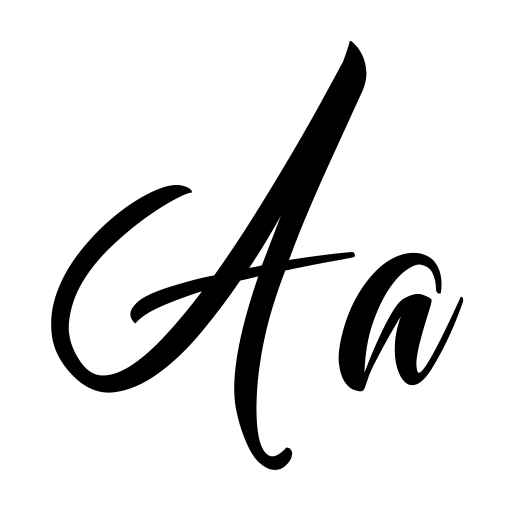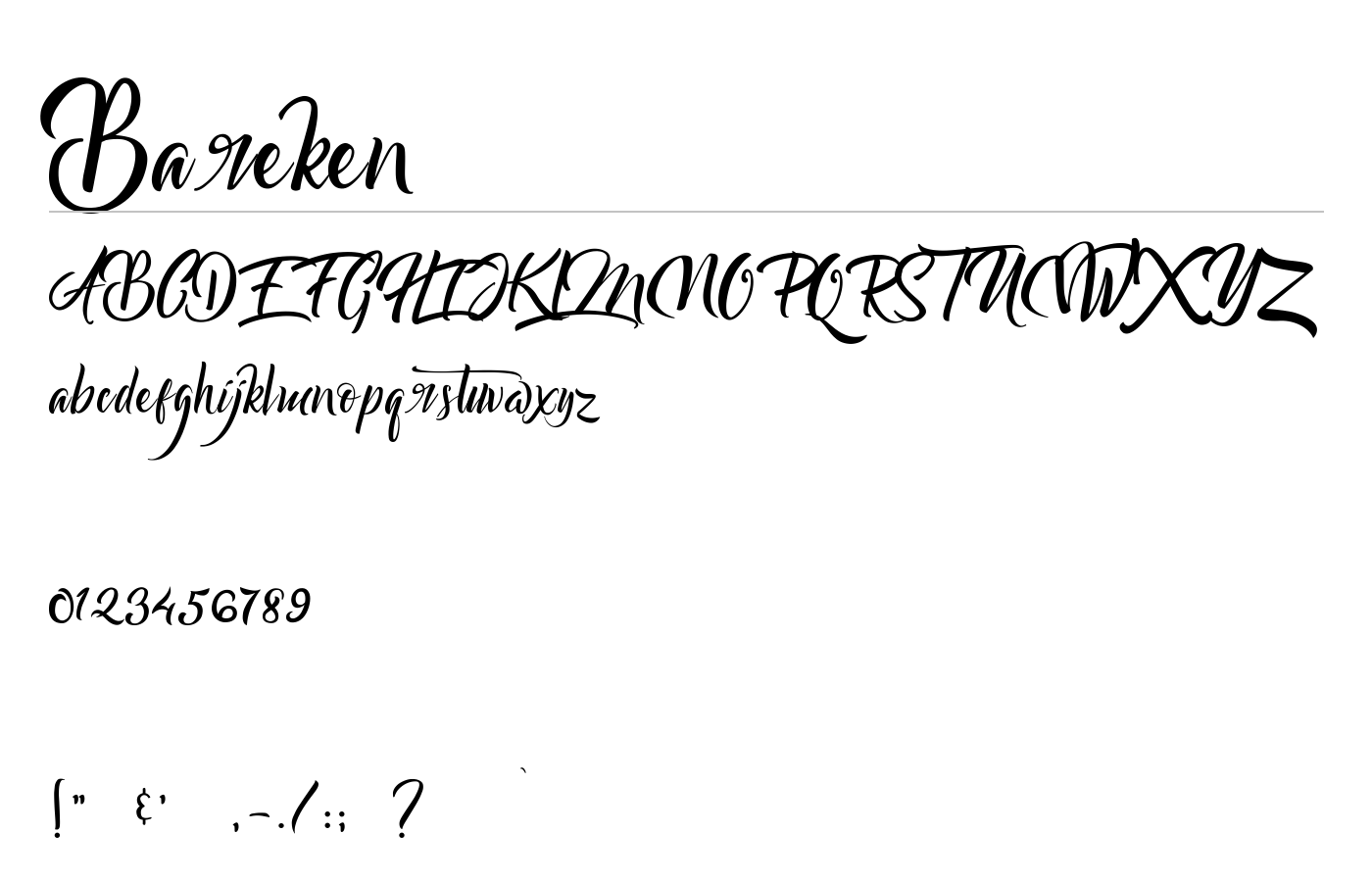
Bareken is a stylish script font with a dynamic, hand-drawn feel that combines elegant curves with bold, flowing strokes. Its varying line thickness and artistic letterforms make it ideal for creative projects, branding, invitations, and headlines where a touch of sophistication and personality is desired. This font shines in designs that need a personal, graceful, yet modern flair.
Bareken Font
About Bareken Font
| Designer | thirtypath |